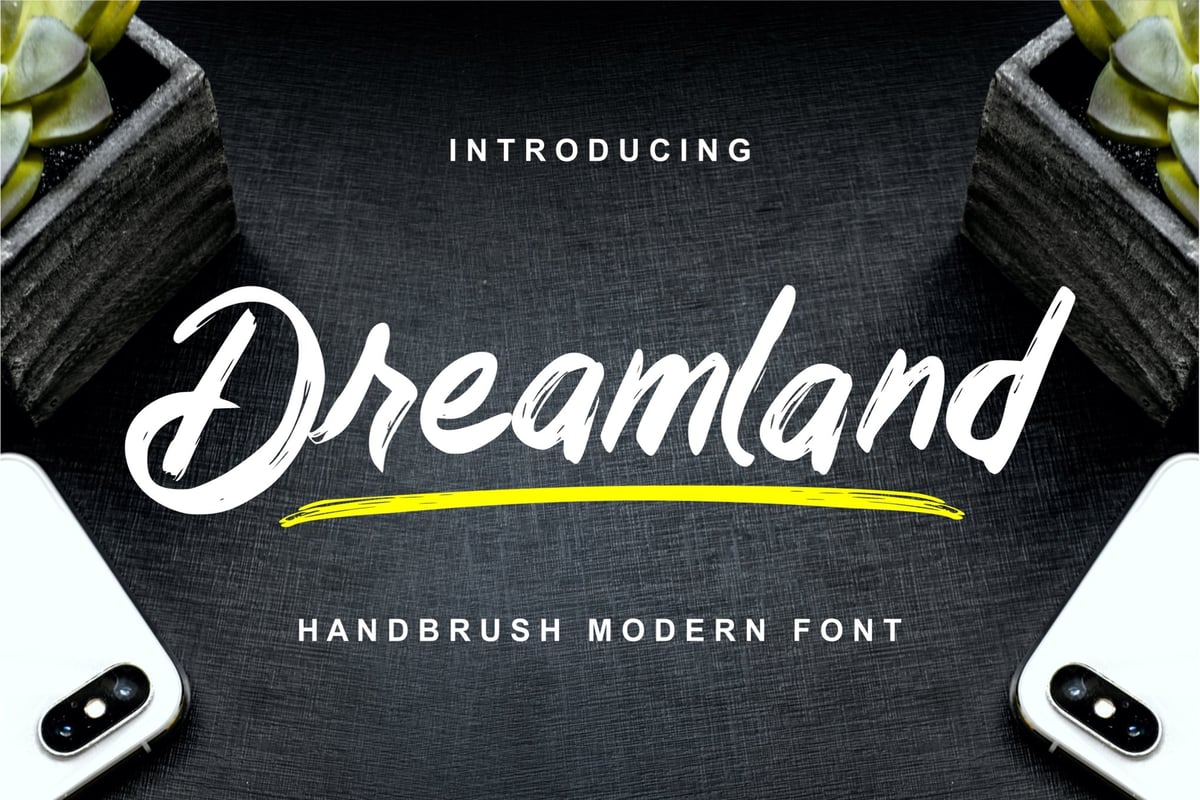
Free Dreamland - Handbrush Modern Font
Dreamland is a bold, expressive handbrush script that brings modern energy to any creative project.
With its fluid brushstroke letterforms and dynamic personality, this typeface is a perfect fit for invitations, greeting cards, branding materials, business cards, quotes, posters, and much more.